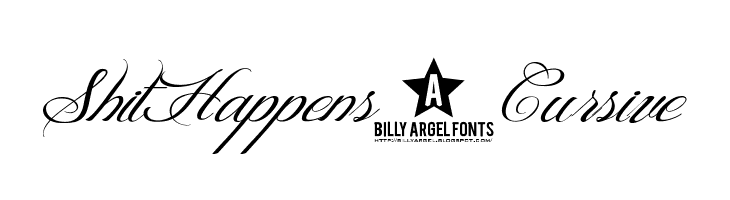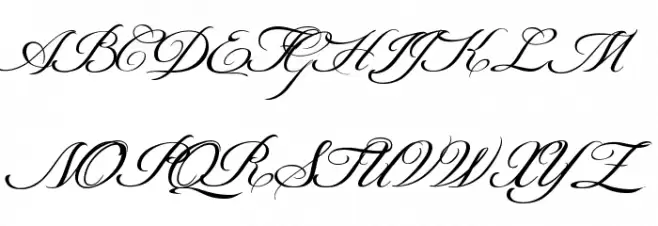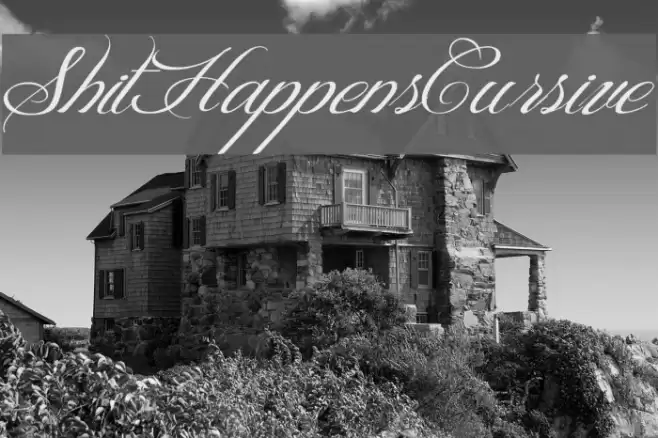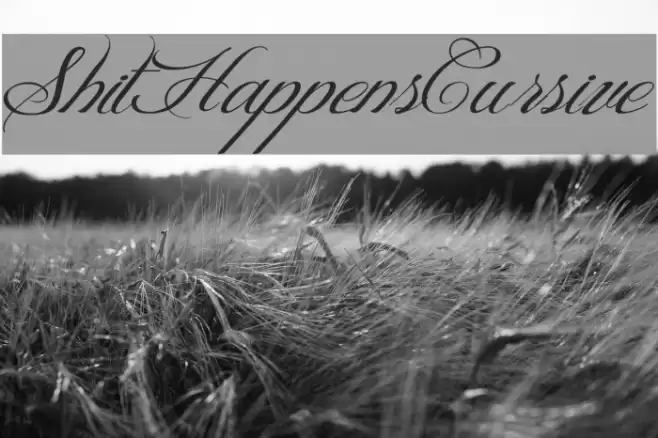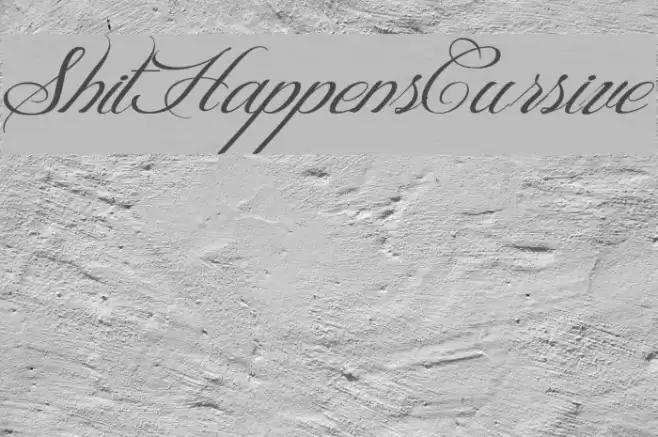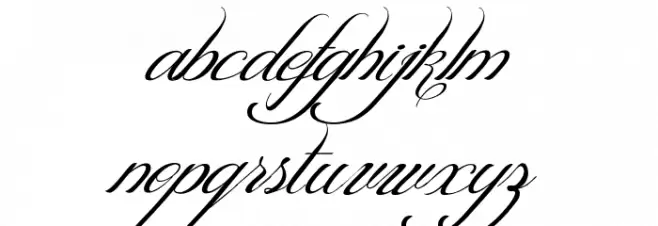
ShitHappens-Cursive Font
ShitHappens-Cursive Description
This elegant cursive font features a flowing, script-like design with intricate loops and swashes. The uppercase letters are particularly ornate, with extended flourishes that give a sense of sophistication and grace. The lowercase letters maintain a consistent style, offering a seamless connection between characters. The numbers and special characters are designed to match the overall aesthetic, providing a cohesive look. This font exudes a classic and timeless feel, making it suitable for formal invitations, branding, and decorative purposes.
| Overall Style | Classic |
| Use Case | Logos, Invitations, Decorative text |
| Proposed Projects | Ideal for wedding invitations, luxury branding, greeting cards, and decorative signage. |